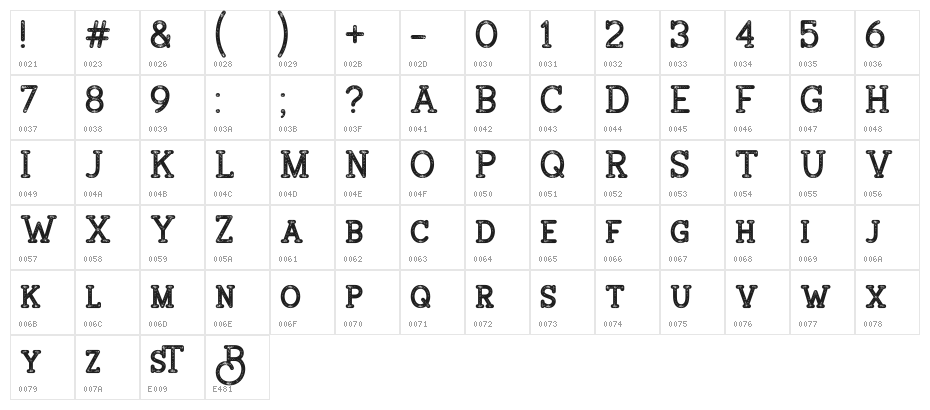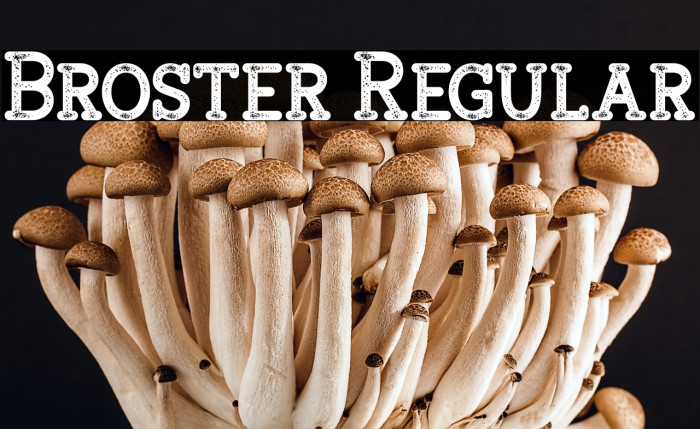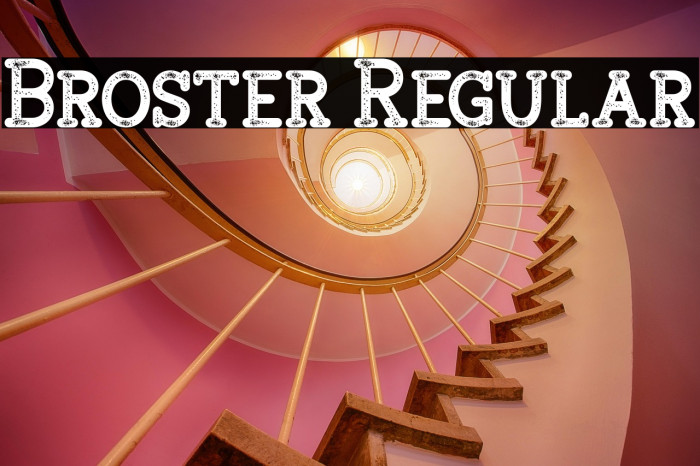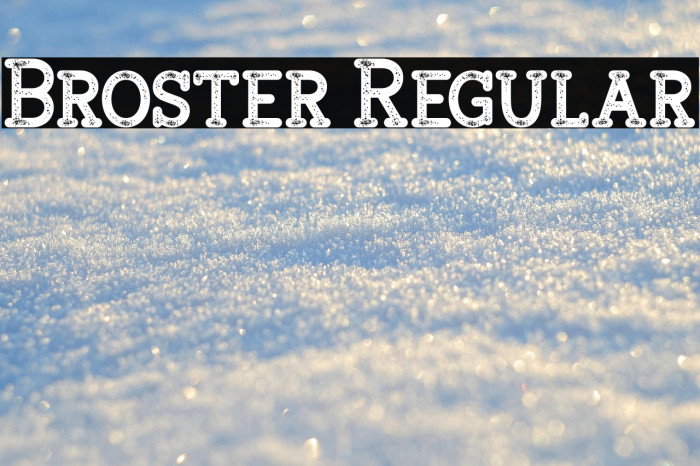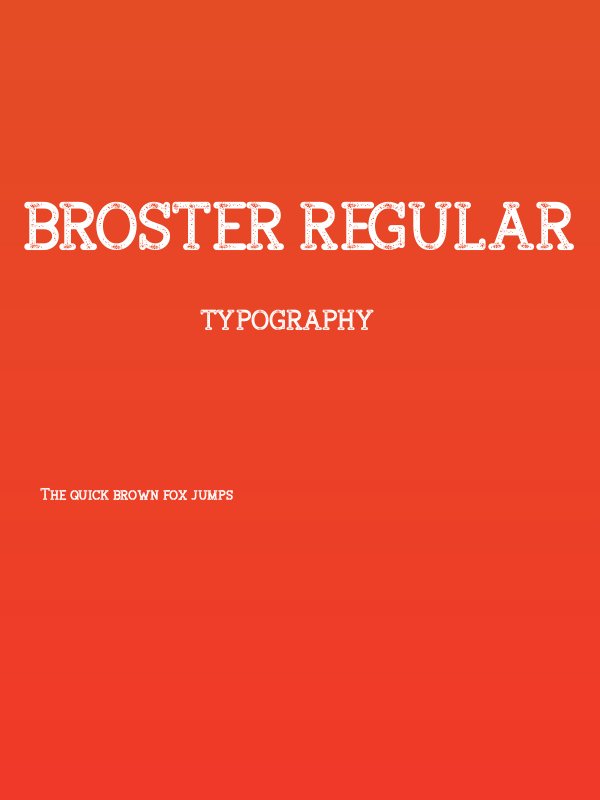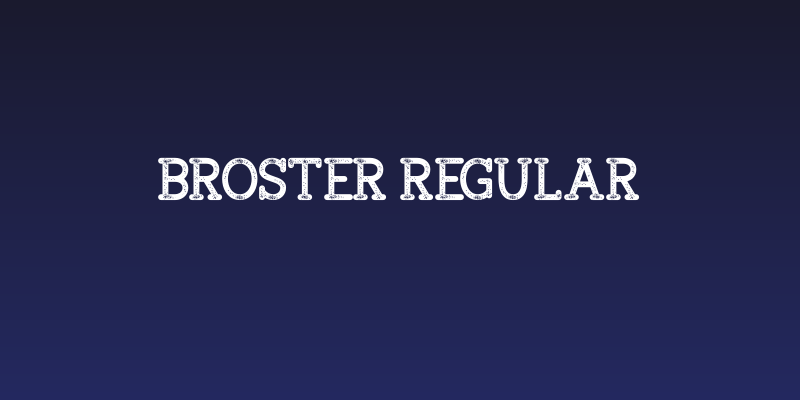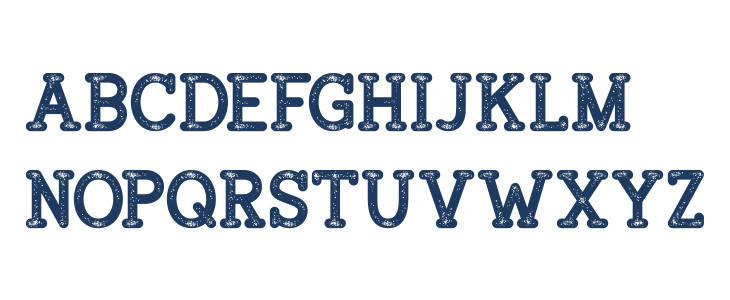
Broster Regular Font
Broster Regular Description
This font features a bold and textured style, reminiscent of vintage typefaces with a modern twist. The characters are robust and display a distressed, grunge effect that adds a unique, handcrafted feel. The uppercase and lowercase letters maintain a consistent weight, providing a cohesive look across the alphabet. The numbers and special characters follow the same design principles, ensuring uniformity. This font's distinctive appearance makes it ideal for projects that require a strong visual impact, such as posters, branding, and packaging. Its decorative nature is balanced by a clear readability, making it versatile for various design needs.
| Overall Style | Vintage |
| Proposed Projects | Ideal for posters, branding, packaging, and any project needing a strong visual impact. |